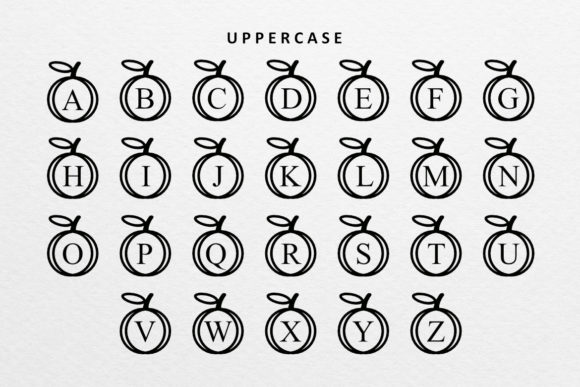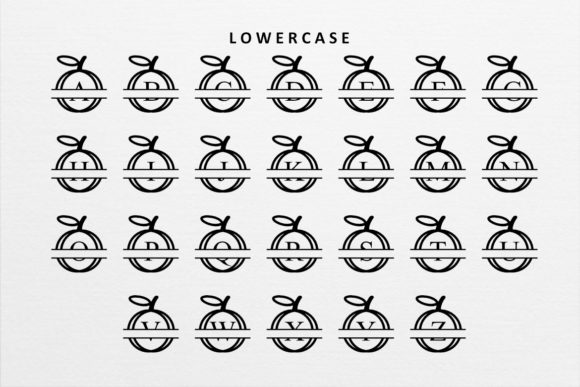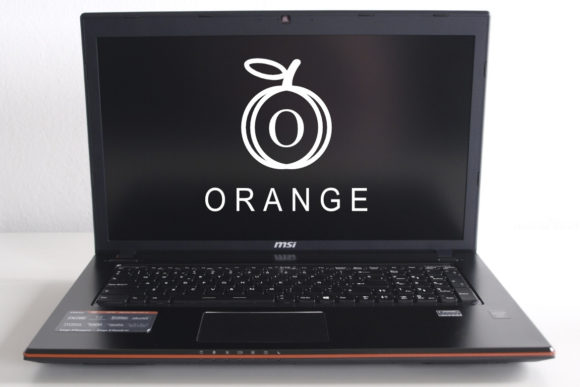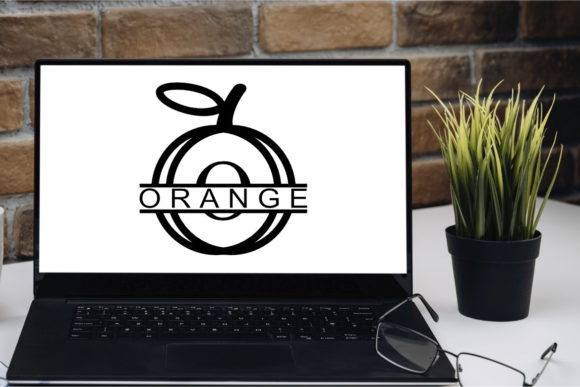
Introduction to My Monogram Font
Have you ever stumbled upon the perfect font for a creative project, only to realize it’s not quite right? That’s what happened to me recently, and it led me to discover the incredible My Monogram Font. I was working on a custom invitation design, and I desperately needed a font that would add a touch of elegance and sophistication. That’s when I came across My Monogram Font, and I knew I had found my missing piece.
As a designer, I can attest that having a versatile and unique font like My Monogram Font in your library is invaluable. Not only does it offer endless possibilities for creative projects, but it’s also a high-quality design resource that can elevate any design. Whether you’re working on a free download project or a paid commission, My Monogram Font is sure to impress.
Key Features of My Monogram Font
- High-quality design for creative projects and personal use, available as a free download.
- Comes with a transparent background, allowing for easy customization and flexibility in design.
- Unique, hand-crafted design elements that set it apart from other monogram fonts in the market.
- Perfect for use as a design resource in a variety of creative projects, from invitations to branding materials.
Honest Review: My Monogram Font
I recently stumbled upon My Monogram Font, and I must say it’s been a game-changer for my creative projects. As a designer, I’m always on the lookout for high-quality design resources that can elevate my work, and this font has certainly delivered.
- High-quality design: The font is beautifully crafted, with a sophisticated and elegant feel that’s perfect for a variety of creative projects.
- Transparent background: The transparent background option allows for seamless integration with other design elements, giving me more flexibility in my projects.
- Limited character set: While the font is beautiful, it’s limited in terms of the number of characters available, which can be a drawback for longer text-based projects.
- No bold or italic options: The font only comes in a regular weight, which can limit its use in certain design scenarios.
Overall, I’m really impressed with My Monogram Font, and I’d highly recommend it to designers looking for a high-quality, free design resource. Just be aware of the limitations, and you’ll be all set for a beautiful and professional-looking design.
Tips for Getting the Most Out of My Monogram Font
My Monogram Font is a high-quality design resource that can be used in a variety of creative projects. Here are some tips for getting the most out of it:
1. Use the font with a transparent background to create a unique and eye-catching design.
2. Experiment with different font sizes and colors to create a cohesive look.
3. Use the font in conjunction with other design elements, such as images and graphics, to create a visually appealing design.
My Monogram Font is a versatile design resource that can be used in a variety of creative projects, including: